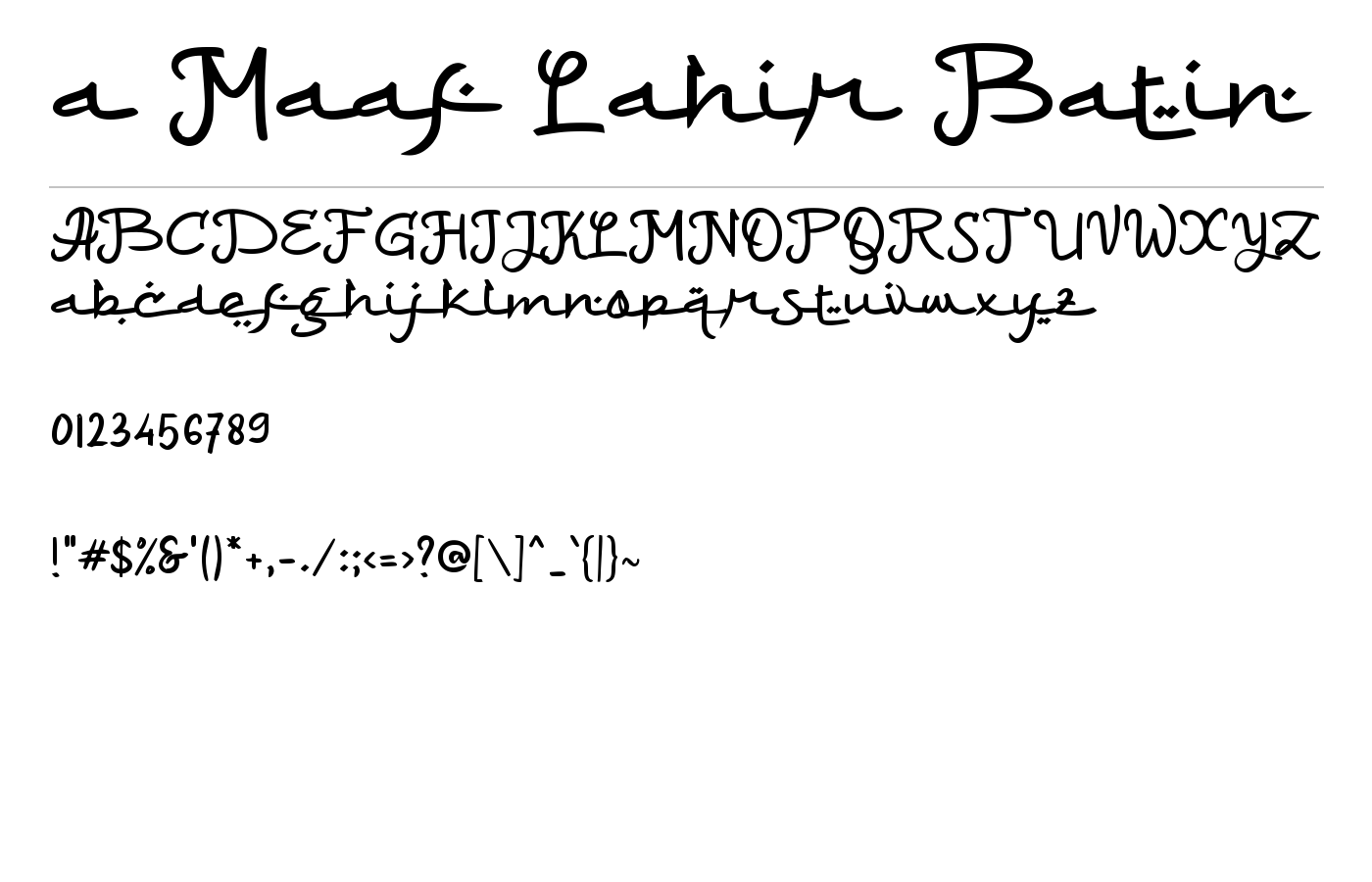
a Maaf Lahir Batin is a playful, handwritten script font with a casual and friendly feel. Its smooth, flowing strokes feature a mix of rounded and slightly angular forms, giving it a unique, personal touch ideal for creative and informal uses. This font works well for greeting cards, invitations, and branding that aims to convey warmth and individuality.
a Maaf Lahir Batin Font
About a Maaf Lahir Batin Font